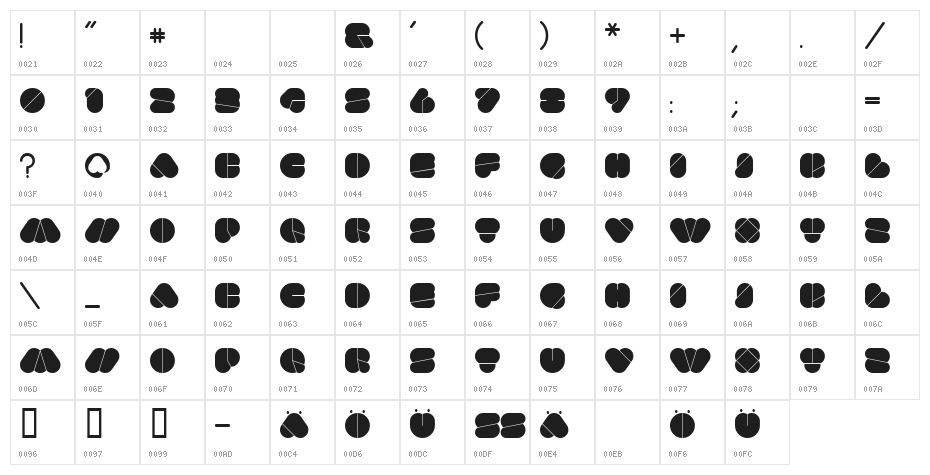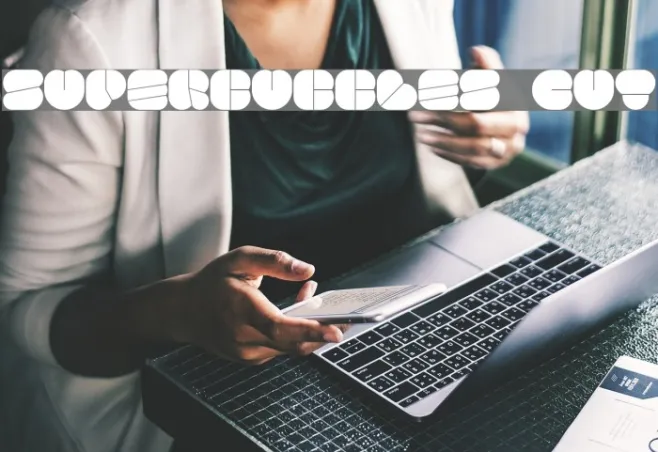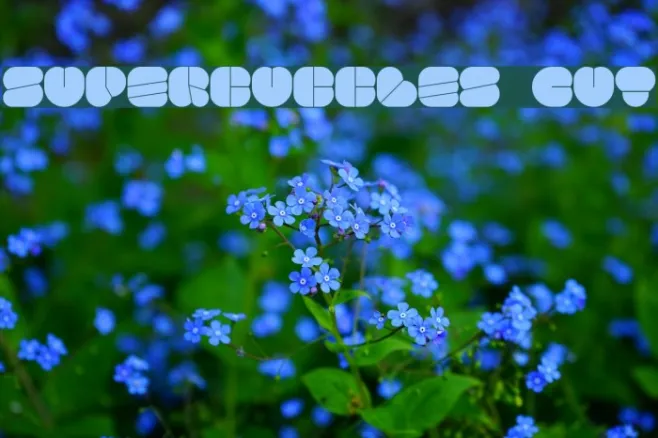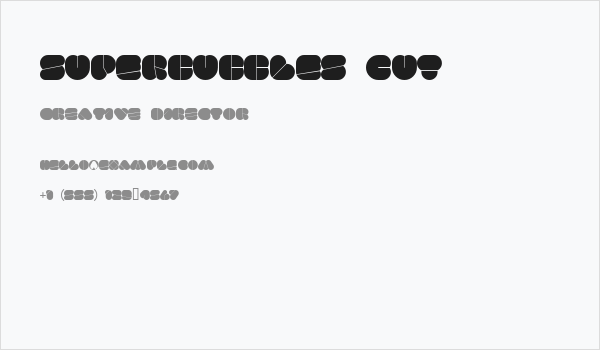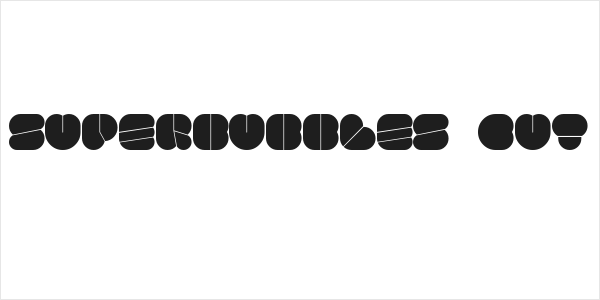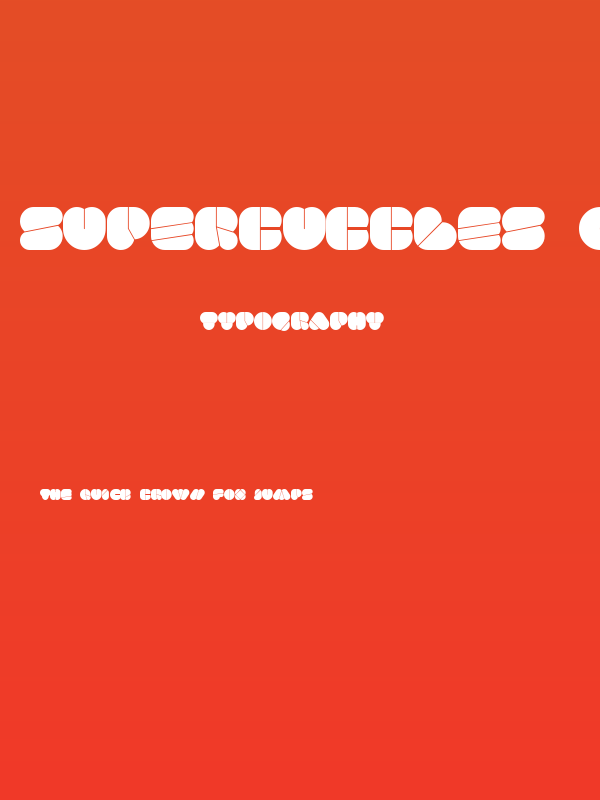
superbubbles Cut Font
superbubbles Cut Description
This font features a bold, geometric design with a playful and modern aesthetic. Each character is composed of thick, rounded shapes that create a bubble-like appearance. The letters are constructed with overlapping segments, giving them a unique and dynamic look. The font's style is highly decorative, making it ideal for projects that require a strong visual impact. Its boldness and distinctiveness make it suitable for eye-catching headlines and creative designs. The uniformity in stroke thickness and the absence of serifs contribute to its contemporary feel.
| Proposed Projects | Perfect for branding, posters, album covers, and any project needing a striking, modern typeface. |